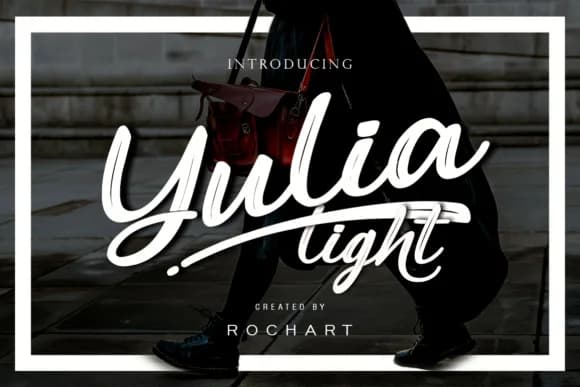
Yulia by RochArt is a modern calligraphy script that seamlessly blends contemporary design sensibilities with timeless, elegant letterforms. This typeface captures the authentic charm of hand-lettering while maintaining the refined sophistication that distinguishes premium creative work. The flowing, organic character of each letter brings distinctive visual presence to projects where craftsmanship, elegance, and attention to detail matter most. From custom wedding invitation suites to eye-catching Etsy product labels and luxury skincare packaging, Yulia demonstrates impressive versatility across professional applications. Designers consistently reach for it when creating personalized stationery systems, signature-based brand identities, special event programs, and monogrammed textile designs, contexts where refined typography conveys quality and intentional craftsmanship. The balanced letterforms maintain clarity across scales, performing equally well as prominent header treatments or flowing through secondary design elements, making it suitable for everything from printed collateral to decorative social media graphics. Yulia's hand-crafted aesthetic adapts naturally to both traditional and contemporary creative applications. Whether gracing luxury product labels, anchoring bespoke branding systems, or personalizing packaging, this script brings sophisticated character and visual interest. The typeface rewards careful kerning and thoughtful placement, with each letterform designed to create cohesive, professional compositions. Get Yulia Font on Creative Fabrica and discover how this refined script can enhance your next design project.
Yulia Font is a script font that shines as a display or heading face. Pair it with a clean sans-serif or serif font for body text β the contrast creates a clear hierarchy while the two styles stay balanced and easy to read.
Yulia Font
by RochArt